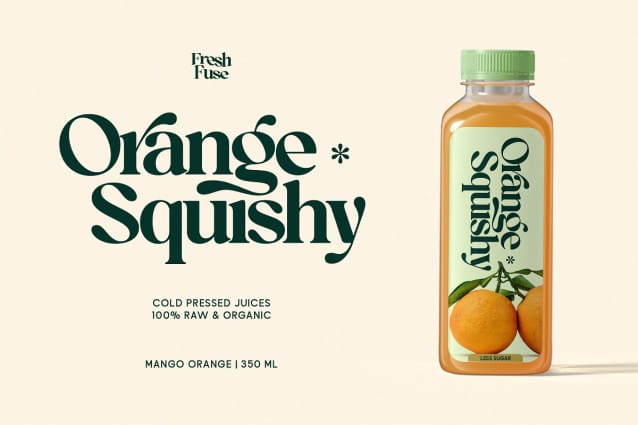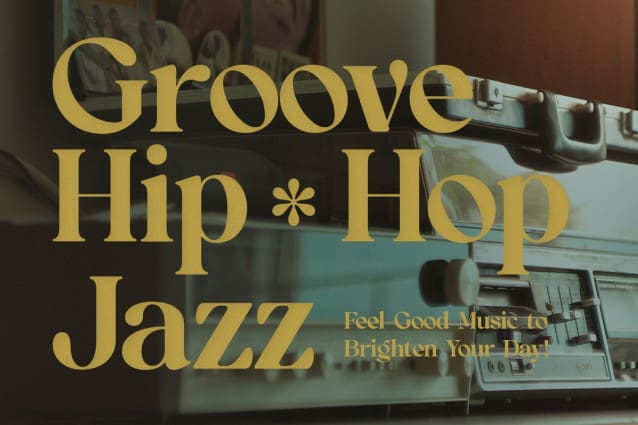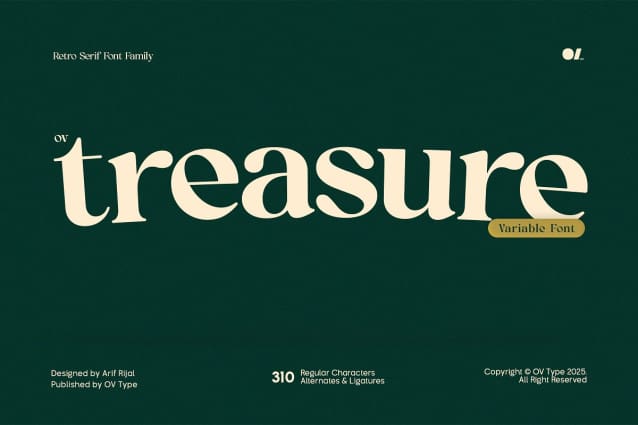
OV Treasure Font Family
OV Treasure Font Family is a retro serif font designed to bring the aesthetics of the vintage era to life with a modern twist. Featuring bold characters, curved letterforms, and unique detailing, this font strikes the perfect balance between nostalgia and elegance. It’s perfect for various design projects, including branding, posters, packaging, magazine headlines, and retro-themed websites.